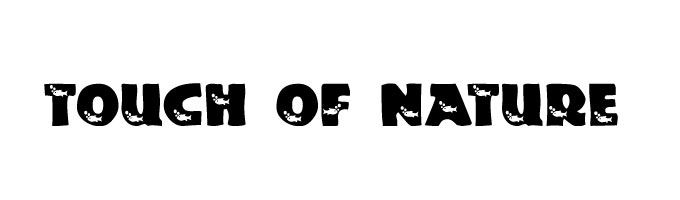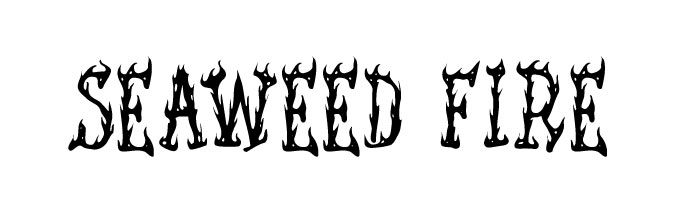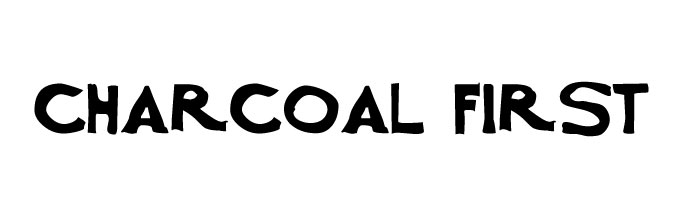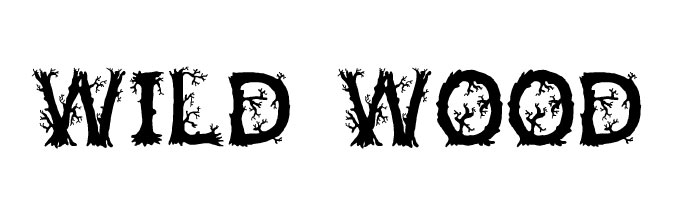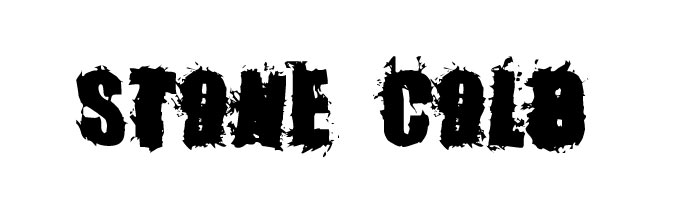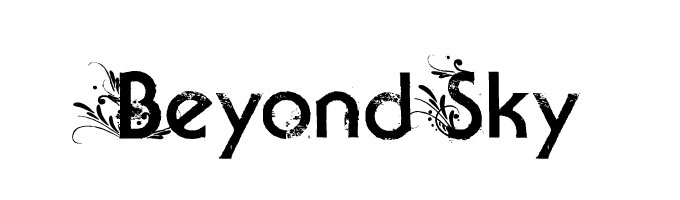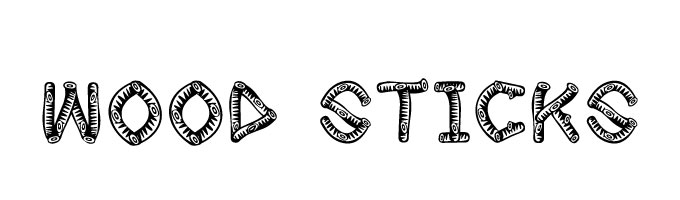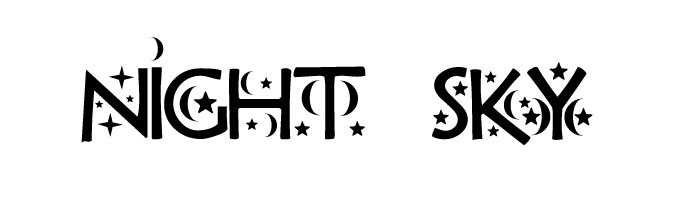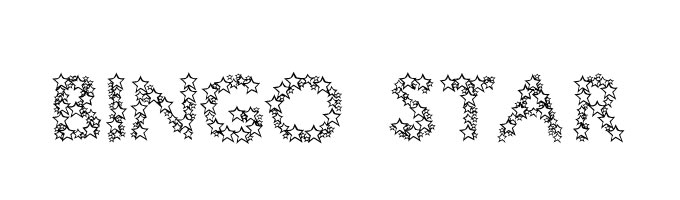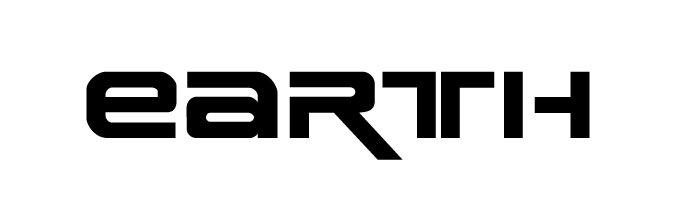
A Roundup of 25 Awesome Natural Themed Fonts
Thanks to climate change and a general shift towards eco-living, natural fonts are in high demand right now. We've scoured the web to find the best...
Font is a substantial element to your overall design in your web or theme. However, it may take a while to look for a nice one to suit for your theme or design background. Therefore, to save your time, we have selected 25 outstanding natural themed fonts for your information.
touch of nature
treelike
flame
apple tree
beachtype
wood
flowers cube
natural log
flower
seaweed fire
charcoal first
wild wood
stone cold
beyond sky
wood sticks
night sky
bingo star
earth
galaxy
alphawoman
moonstar
little insect
animal caps
sea dreams
jungle rock